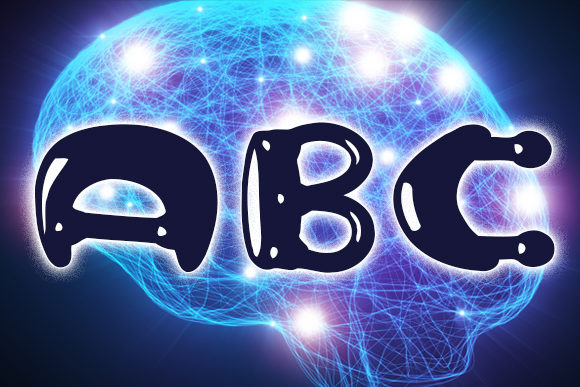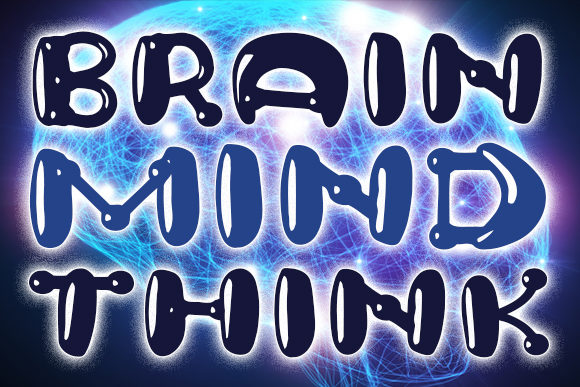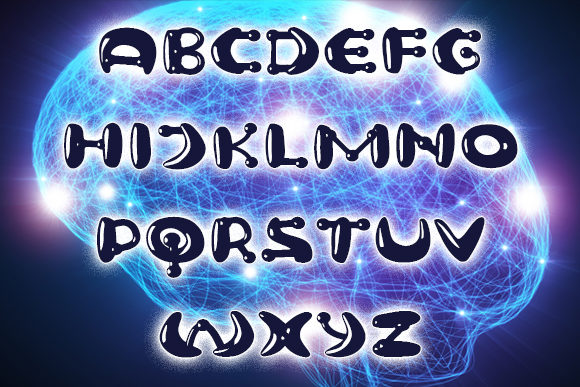
Introduction to Neuron Font
Have you ever stared at a blank canvas, eager to bring your creative vision to life? The blank page can be intimidating, but what if you had the perfect tool to spark your imagination? This is where the Neuron Font comes in – a whimsical and fun display font that’s sure to add a dash of personality to your design projects.
Whether you’re a seasoned designer or a crafty enthusiast, the Neuron Font is an invaluable resource to have in your toolkit. With its transparent background and high-quality design, it’s perfect for creating stunning visual effects that will elevate your projects to the next level.
Key Features of Neuron Font
- High-quality design resource for creative projects, ideal for use in graphic design, digital art, and web development.
- Features a transparent background, allowing for seamless integration with other design elements and a clean, minimalist aesthetic.
- Designed with a modern and futuristic feel, making it perfect for use in cutting-edge creative projects and innovative design concepts.
- Includes a comprehensive character set, covering a wide range of languages and special characters, making it a versatile design resource.
Honest Review: Neuron Font
I recently had the chance to try out the Neuron Font, and I’m excited to share my thoughts with you. As a designer, I’m always on the lookout for high-quality design resources that can elevate my creative projects.
One thing that really stood out to me about the Neuron Font is its versatility. It’s perfect for a wide range of design applications, from digital interfaces to print materials. I particularly love how easy it is to customize and style, making it a great addition to any design toolkit.
- Highly customizable and scalable
- Perfect for digital and print design applications
- Includes a transparent background option
However, I did notice a few limitations: ⚠️
- Limited character set (may not be ideal for languages with complex scripts)
- Some glyphs may not be perfectly optimized for small font sizes
Overall, I’m impressed with the Neuron Font and would definitely recommend it to fellow designers. With its high quality and versatility, it’s a great addition to any design resource library. Whether you’re working on a personal project or a large-scale commercial campaign, the Neuron Font is definitely worth checking out.
The Neuron Font is commonly used in creative projects such as logos, brochures, and business cards. It is also used in digital design projects such as websites and social media graphics.